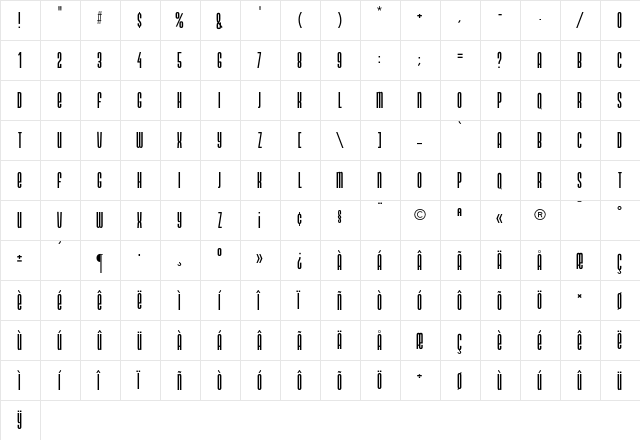
Neon CG ExtraCondensed Regular
| Foundry | Agfa Corporation |
Design Context for Neon CG ExtraCondensed Typeface
Neon CG ExtraCondensed channels digital-age aesthetics through its sharp, structured letterforms — ideal for brands that want to signal innovation. The condensed width makes it efficient for tight spaces without sacrificing legibility.